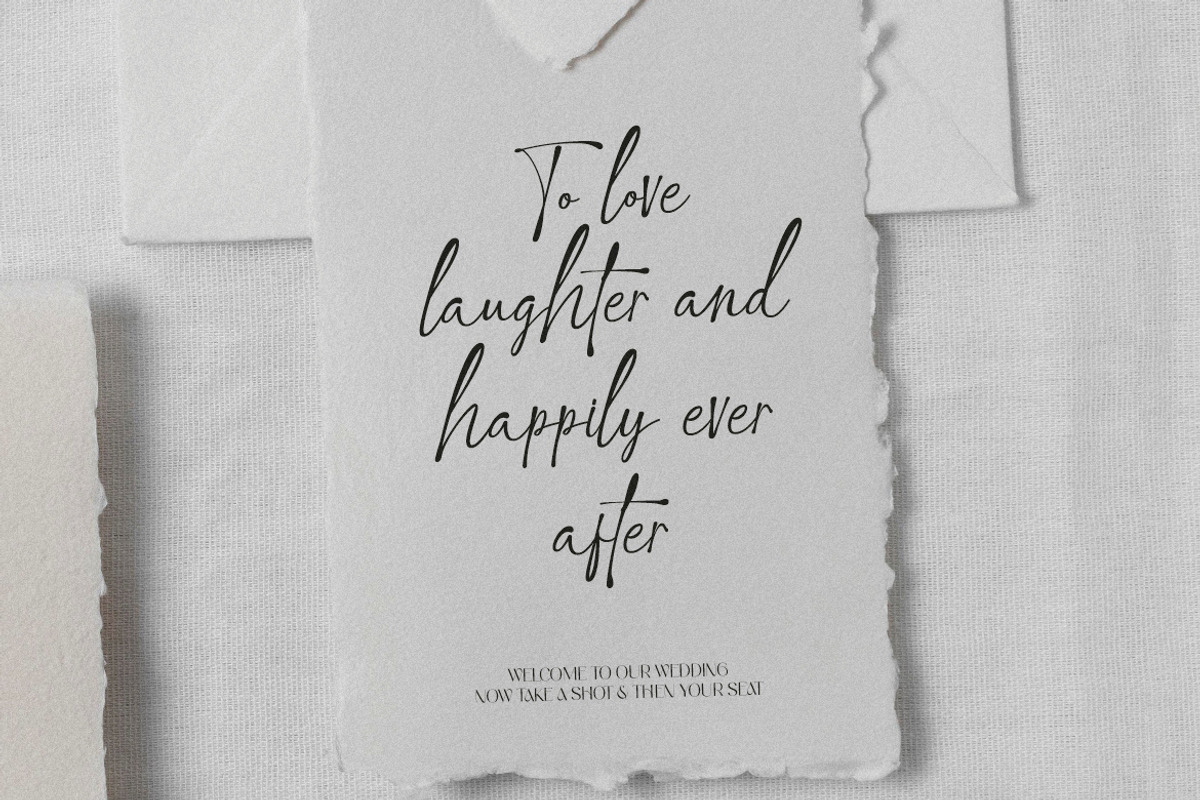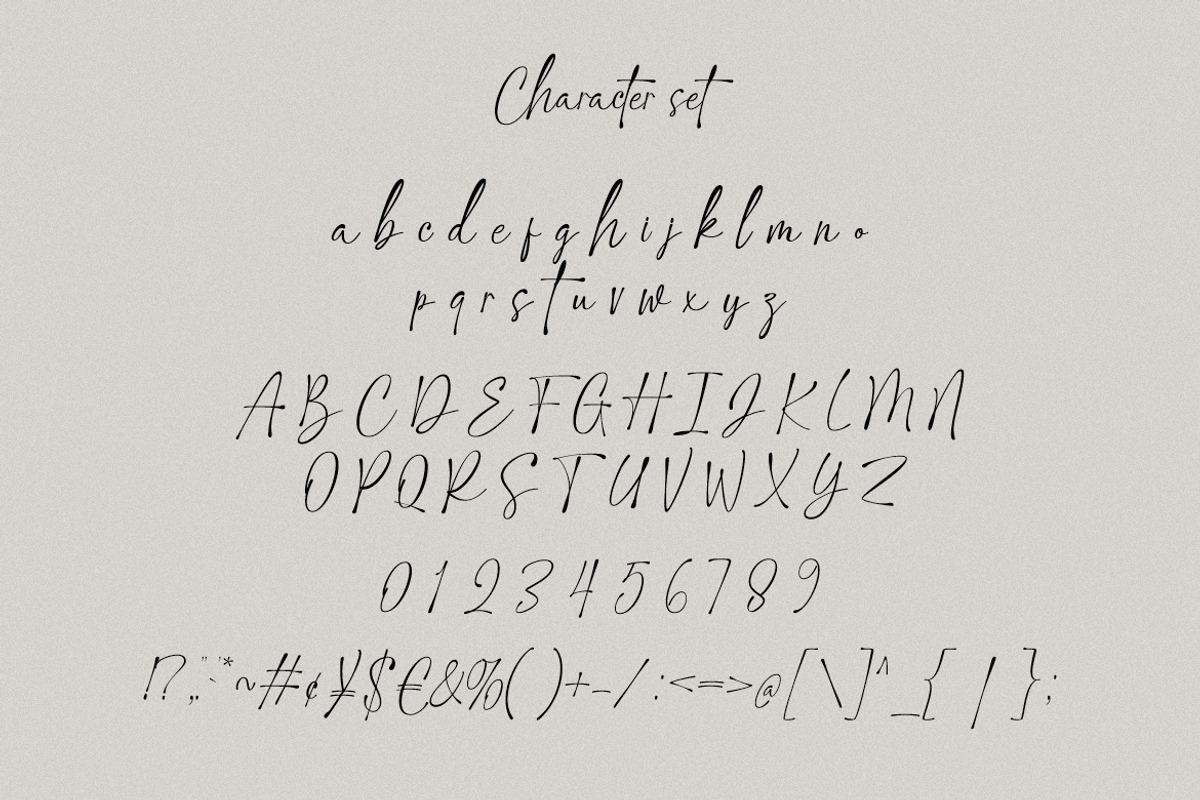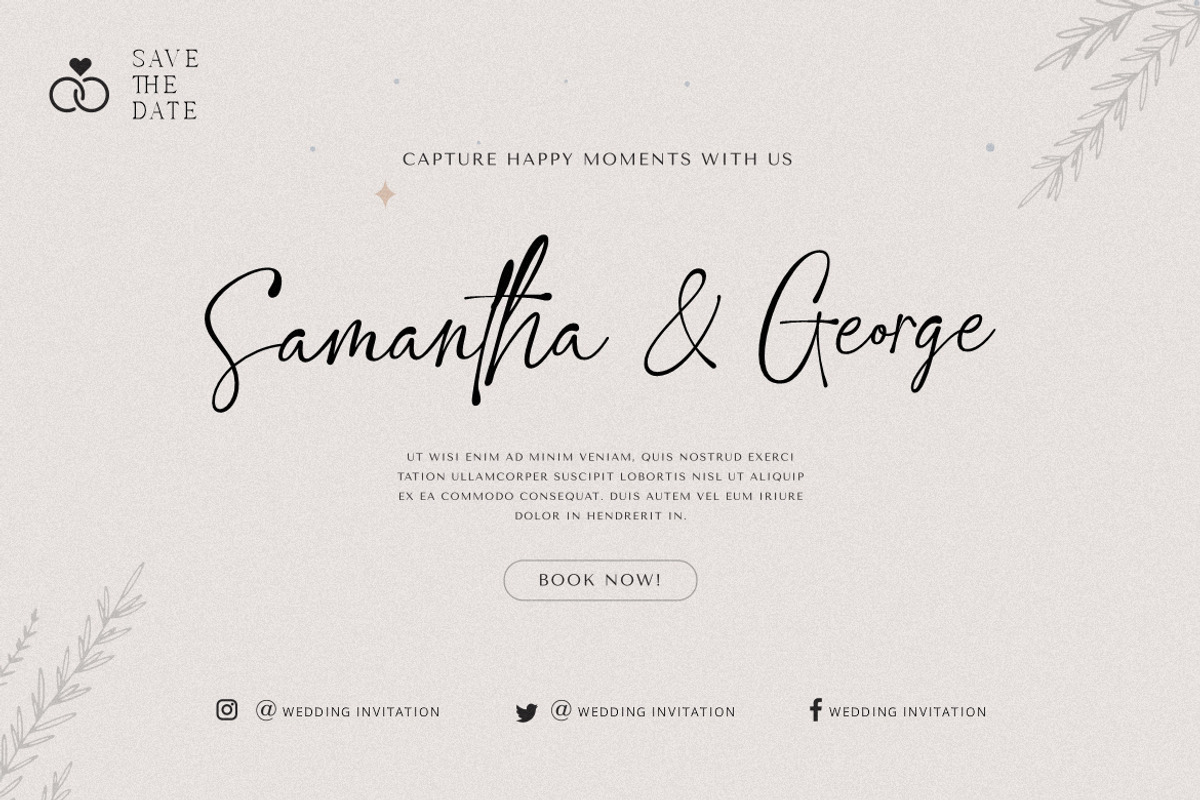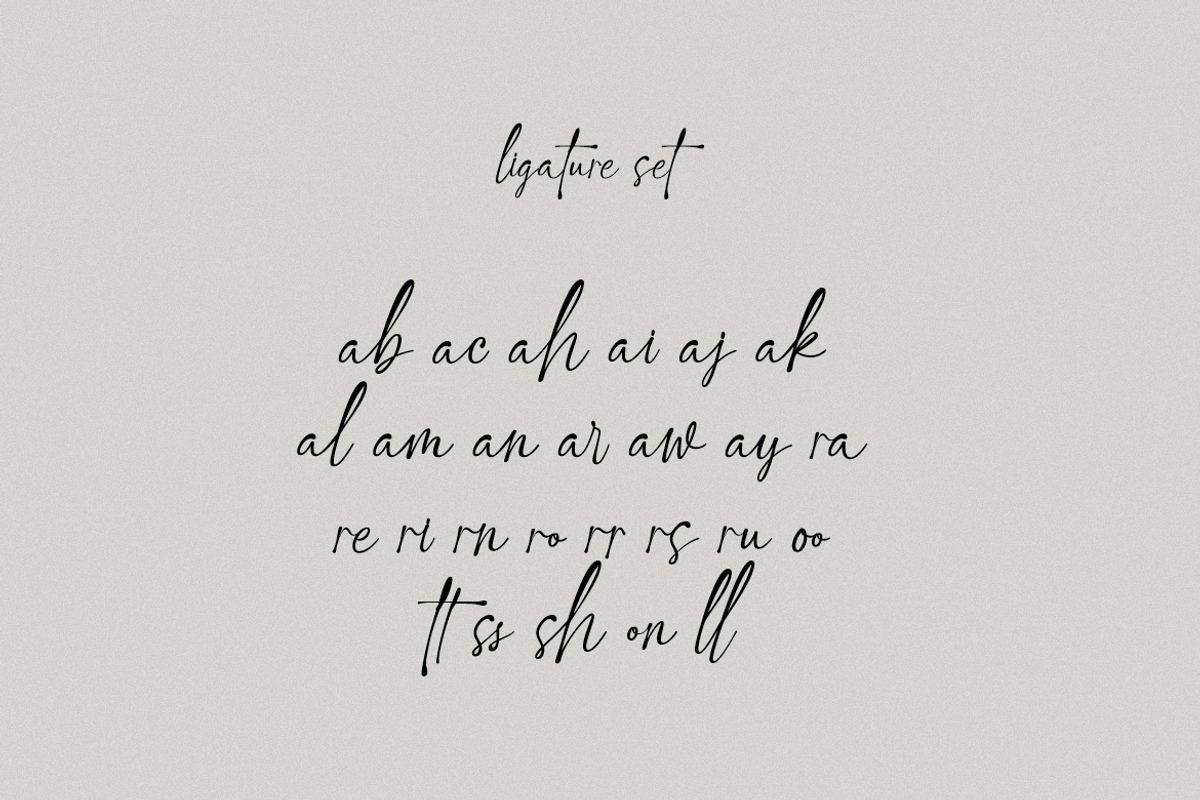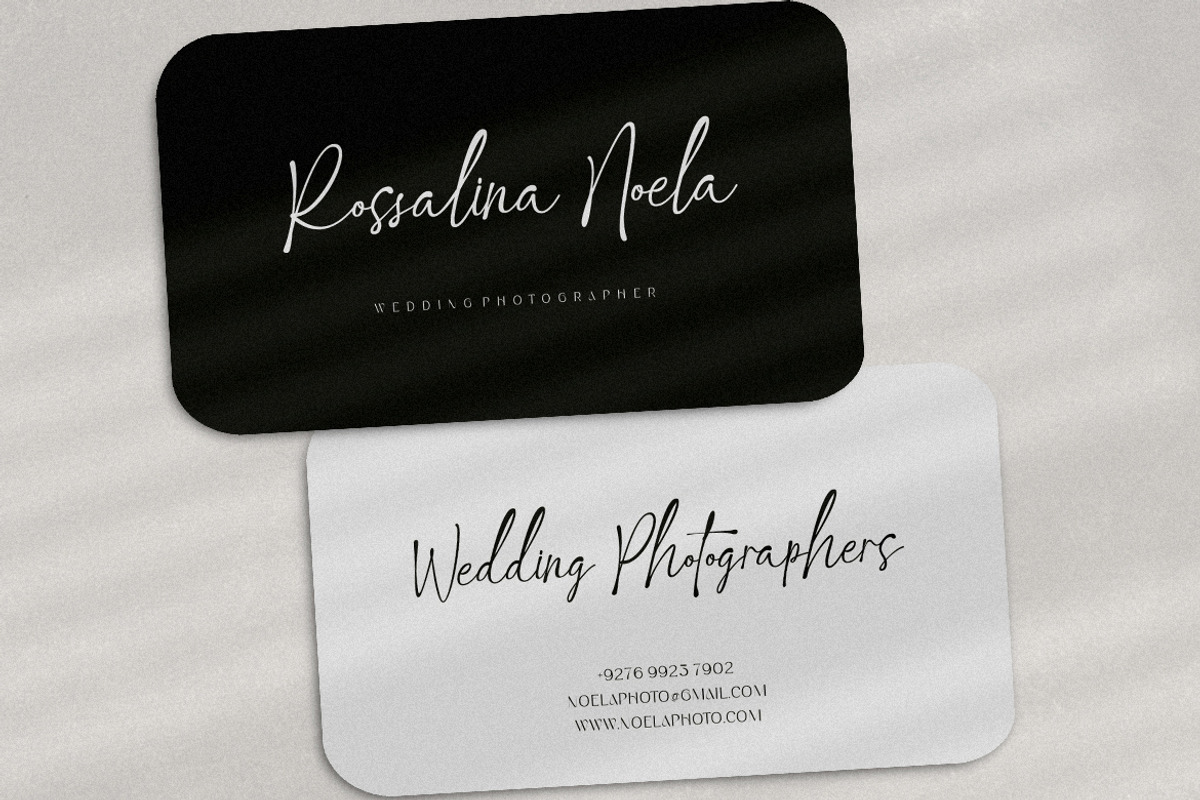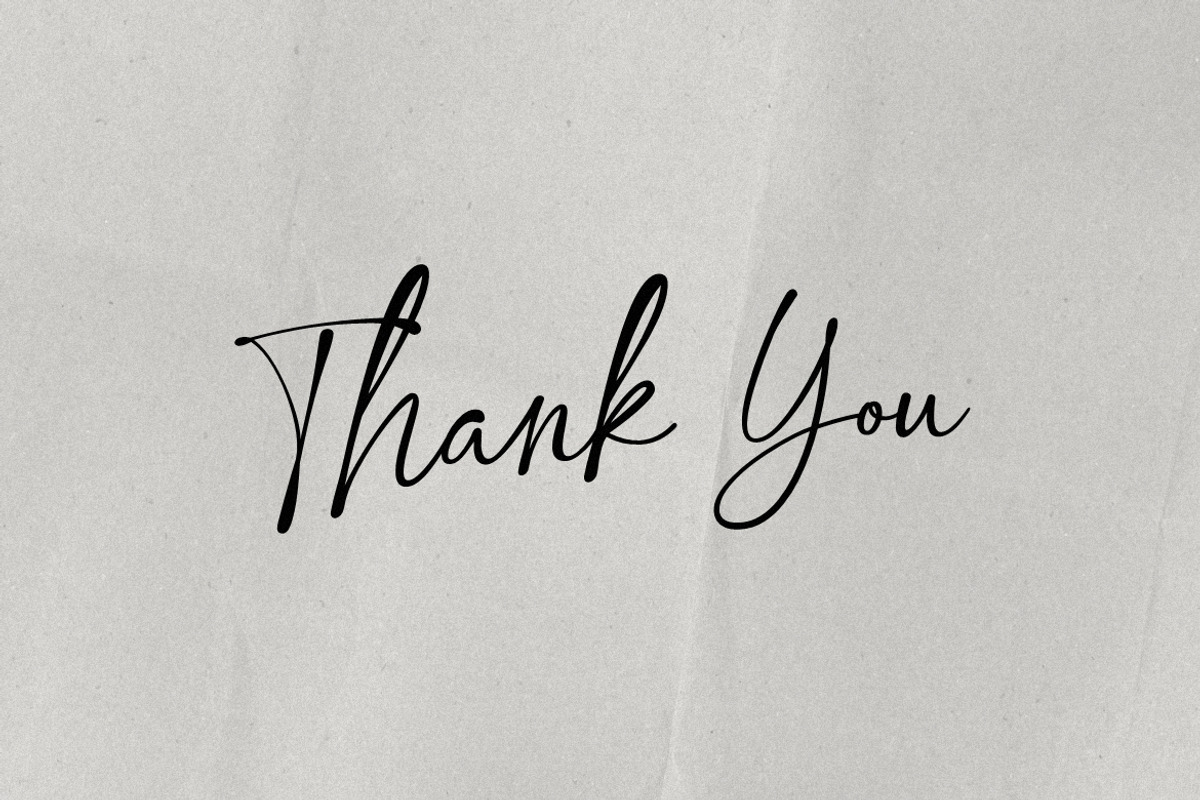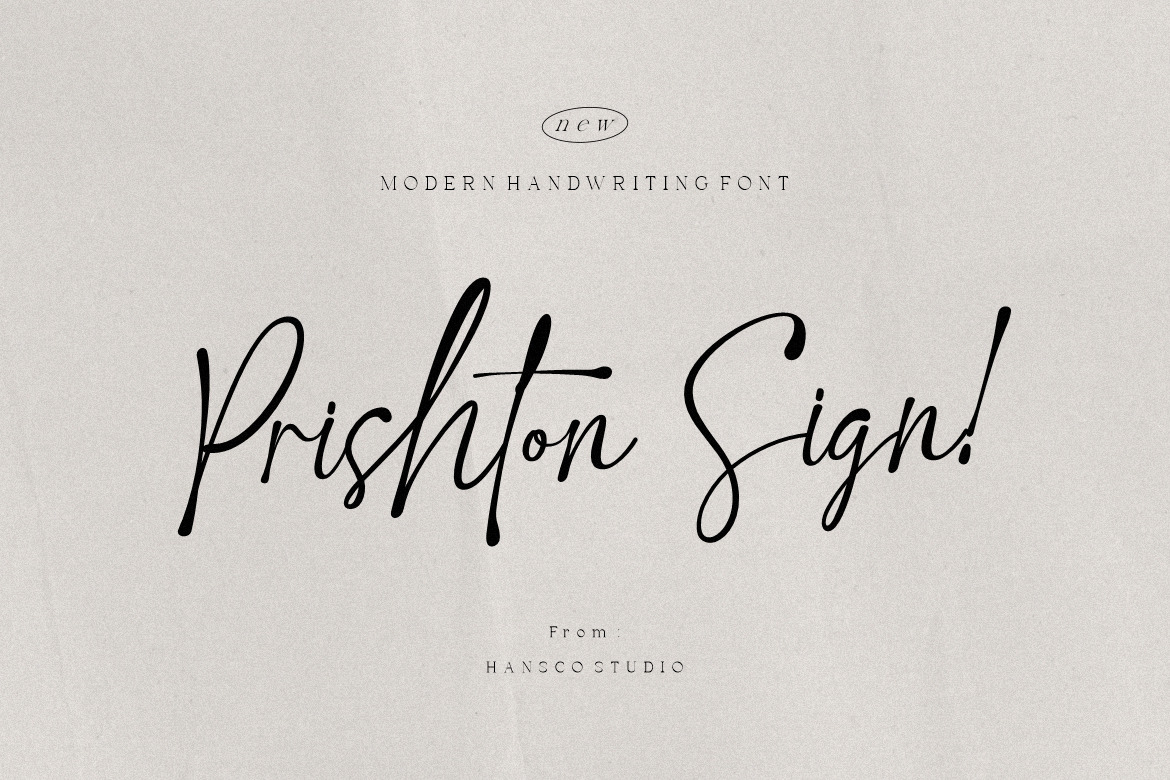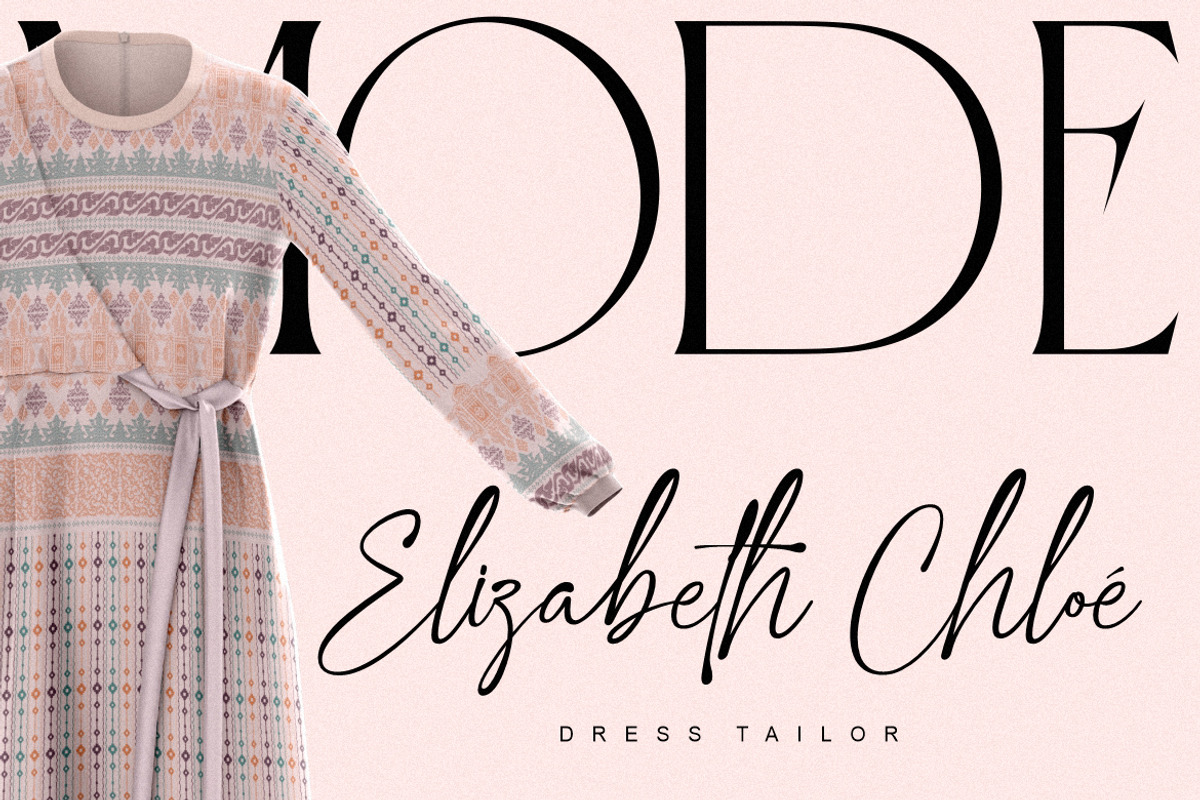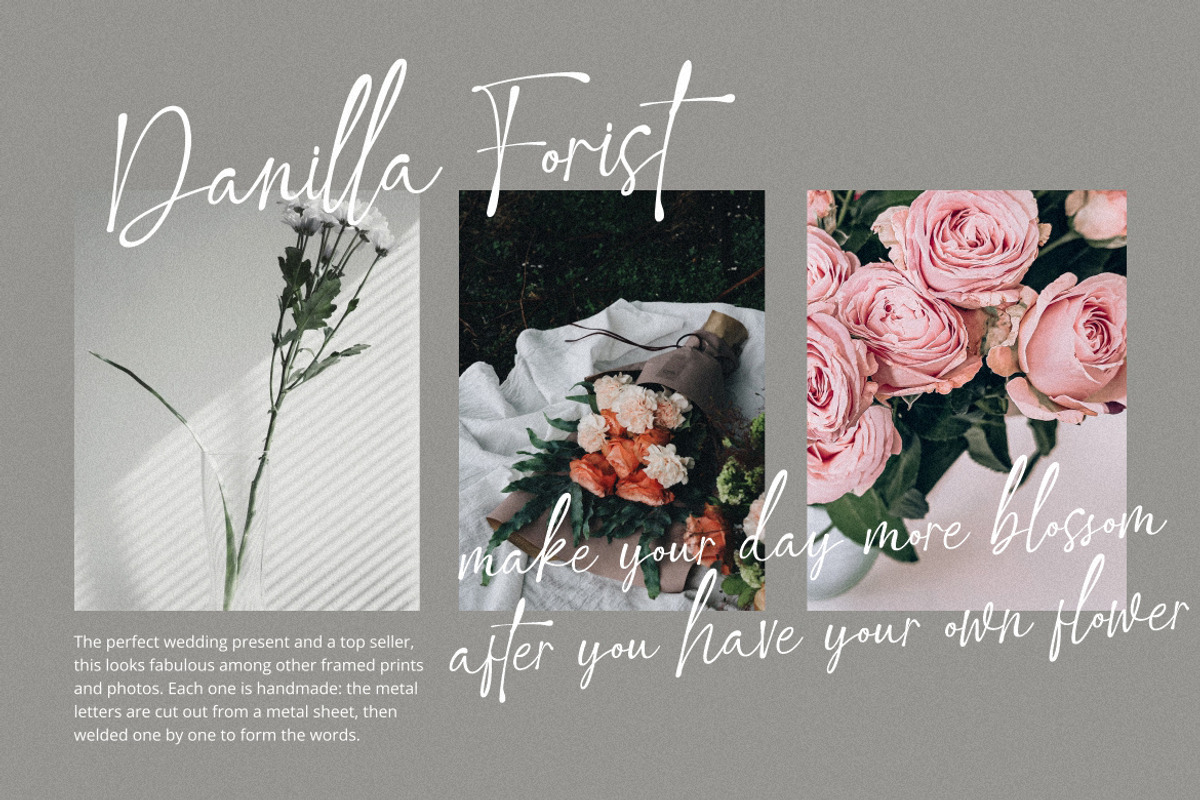
Prishton Sign a Handwriting Font
Prishton Sign Font is a natural and modern handwriting font carefully created with a touch of elegance. This font is perfect also for creating print templates like posters, branding, quotes, blog titles, fashion, invitations, greeting cards, business cards, clothing, stationery or anything else. Comes with a full uppercase, lowercase, numbers, punctuation and with extensive language support, it’s going to be a very usable addition to your project. Use this Prishton Sign Font to add that special awesome handwriting touch to any design idea you can think of!.
Ligature